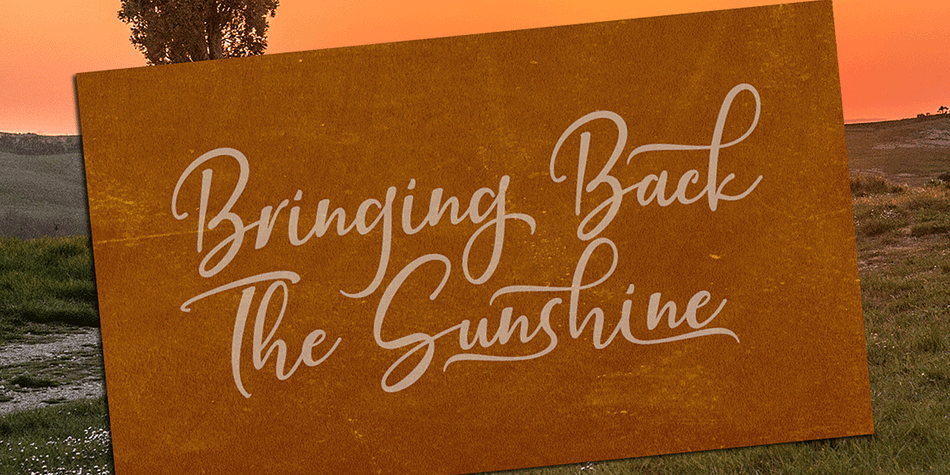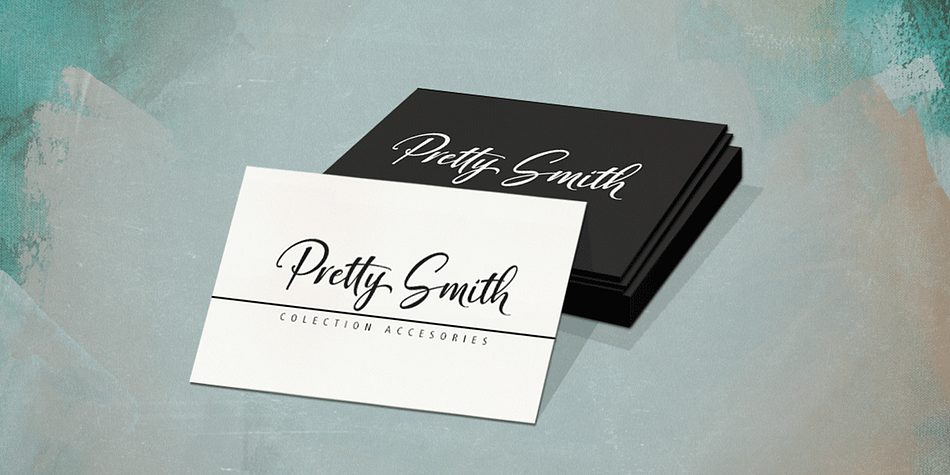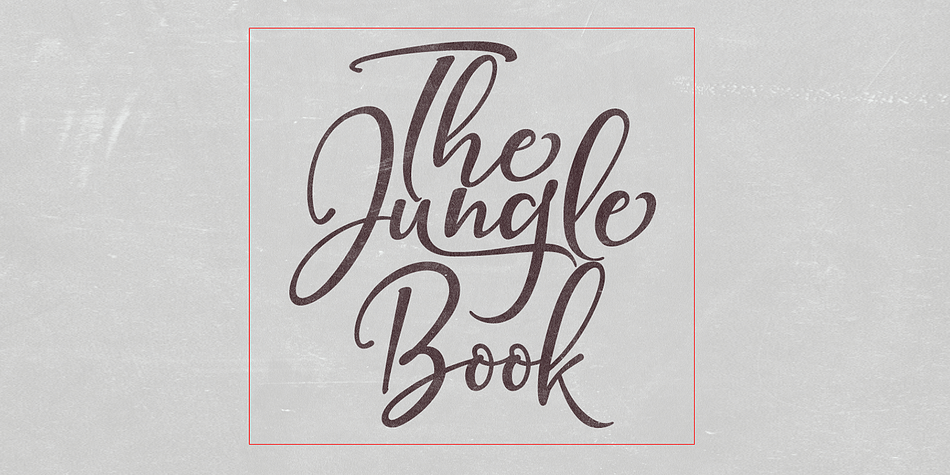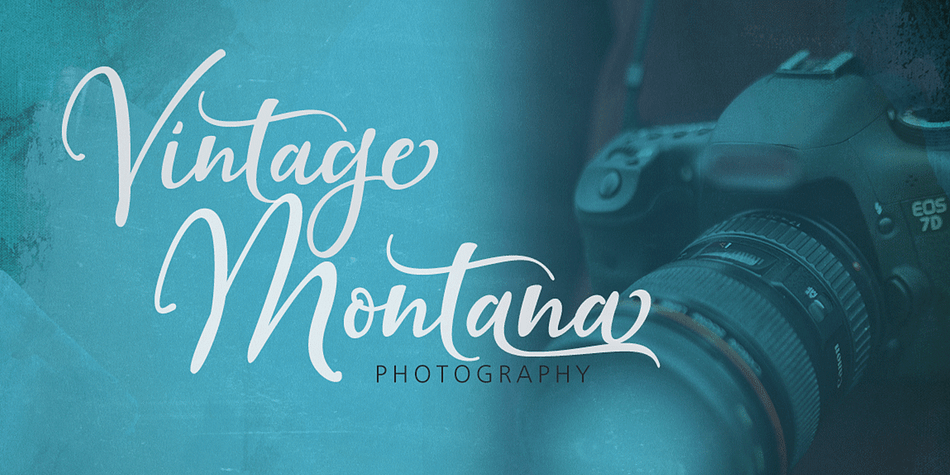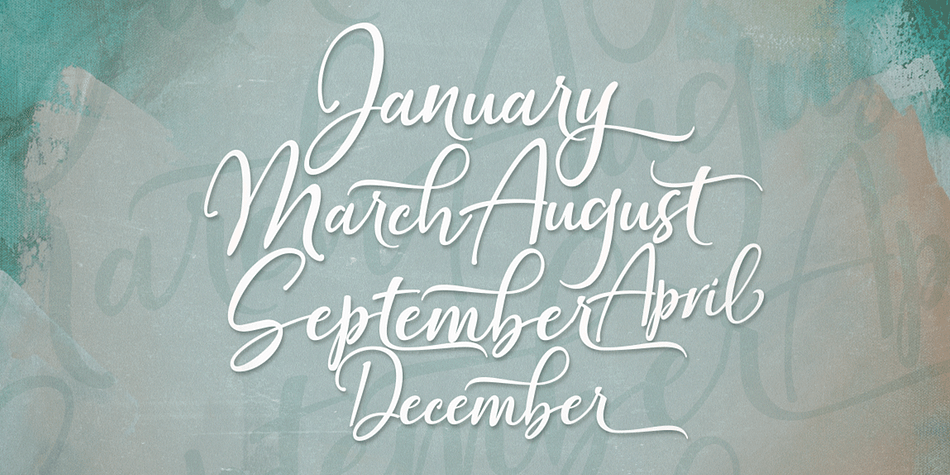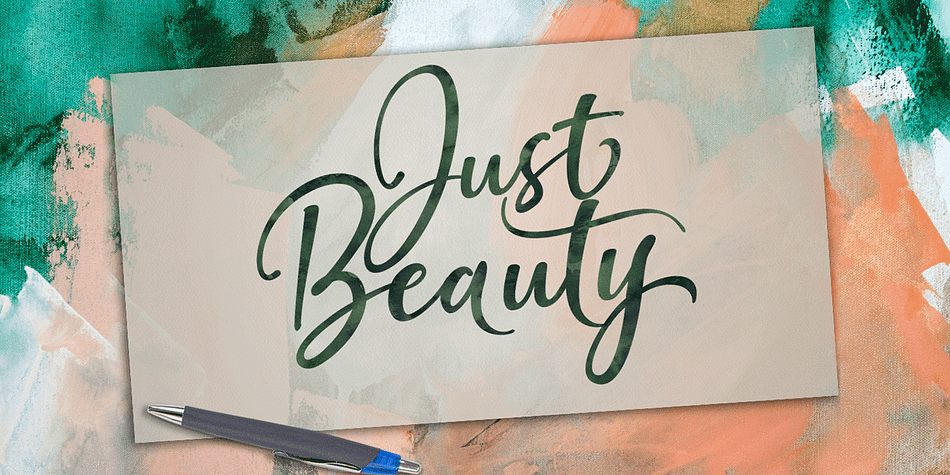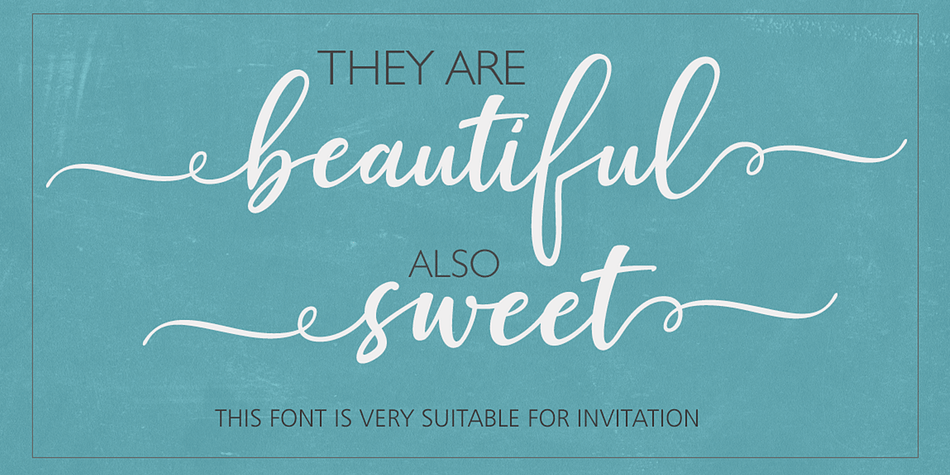
Designed by Roiyani Teungku, Just Beauty is a modern calligraphy and script font published by Groens.
Just Beauty, it is that the smooth fonts brush that has a different style. This is the perfect choice for personal branding project. Can be used for various purposes.such as headings, logos, wedding invitations, t-shirts, letterhead, lable, news, posters, badges etc. To enable the OpenType Stylistic alternates, you need a program that supports OpenType features such as Adobe Illustrator CS, Adobe Indesign and CorelDraw X6-X7.
The Features of this fonts is;
Standart ligatures
Swash Alternates
Stylistic Alternates
Stylistic sets
PUA Unicode (Private Use Areas)